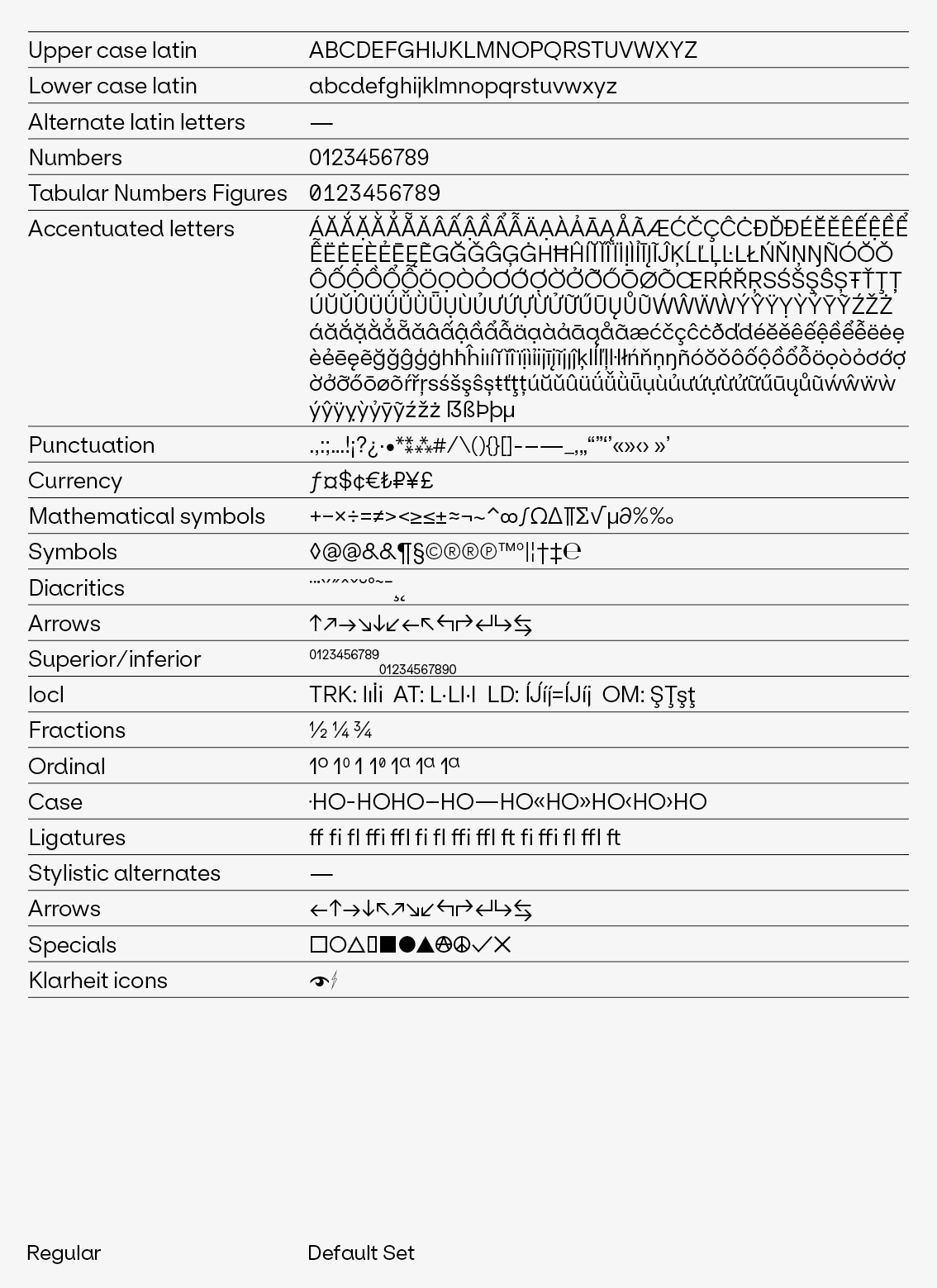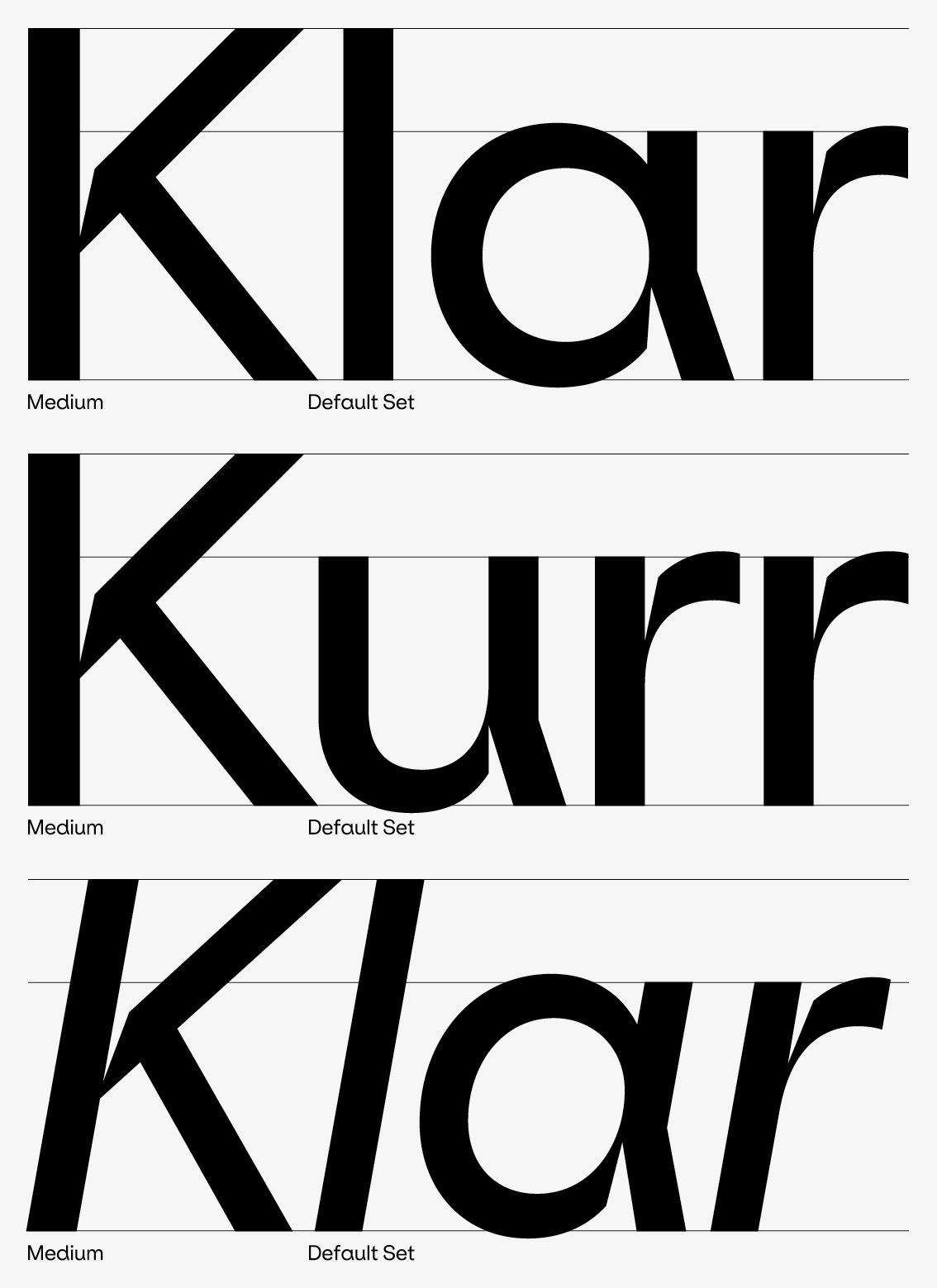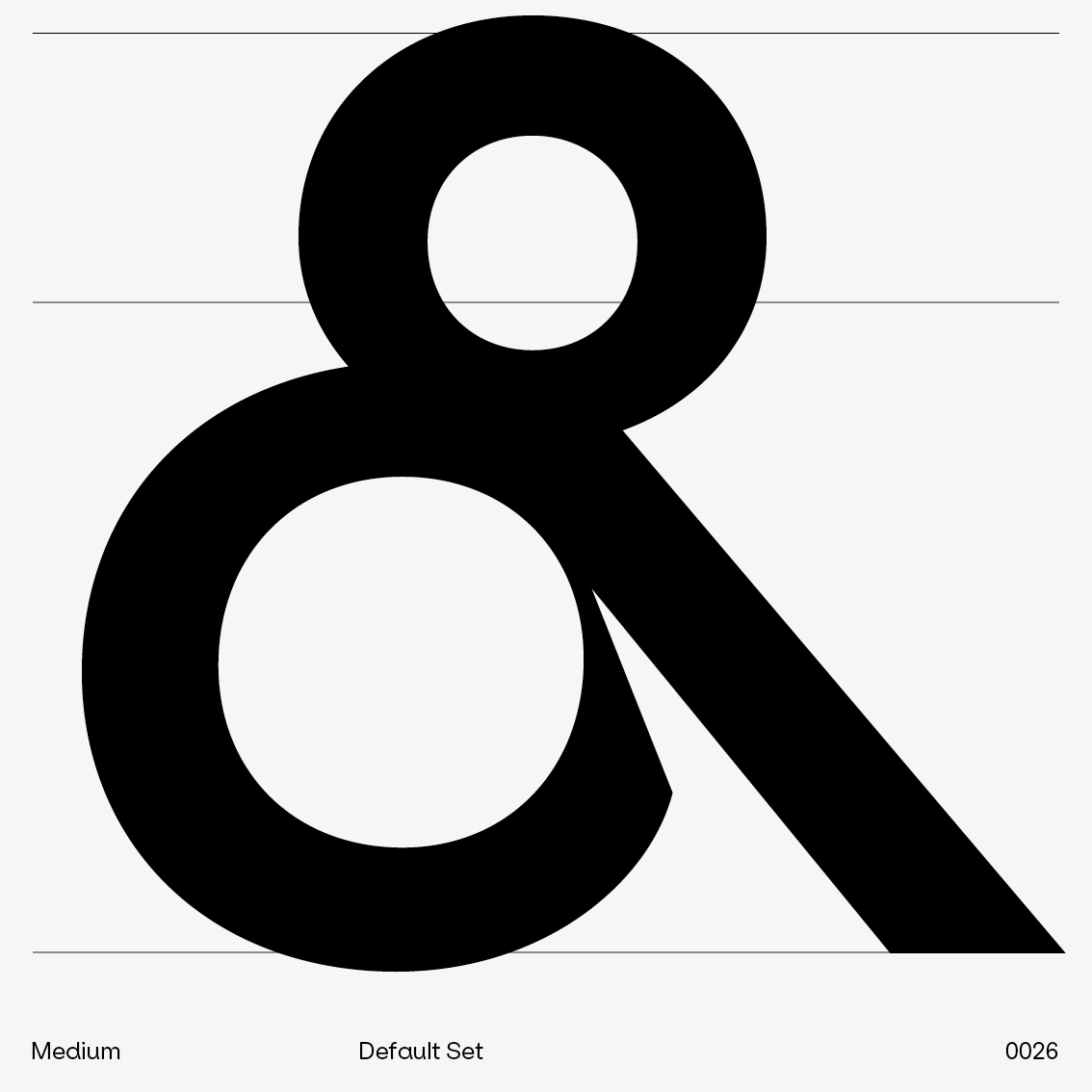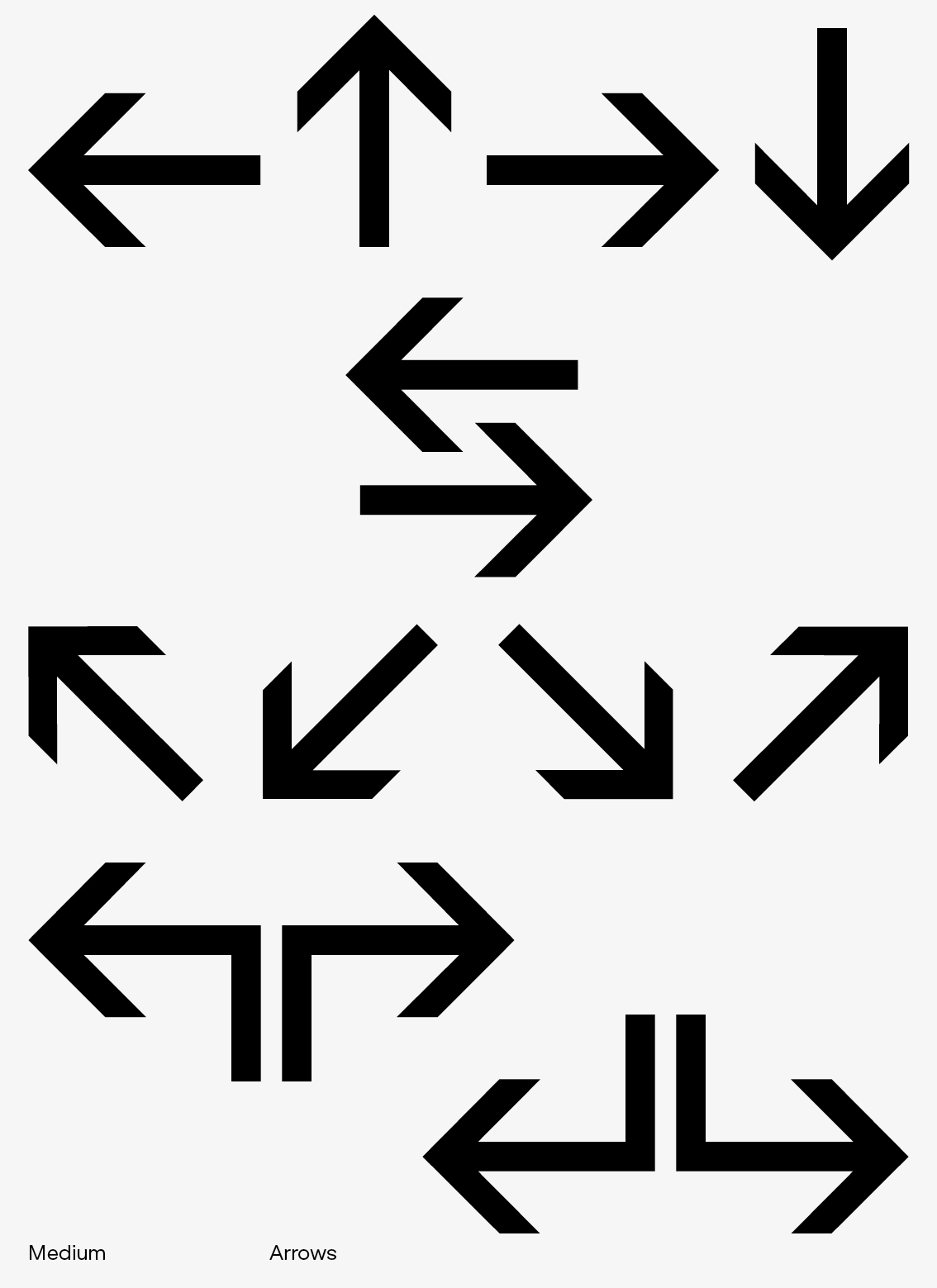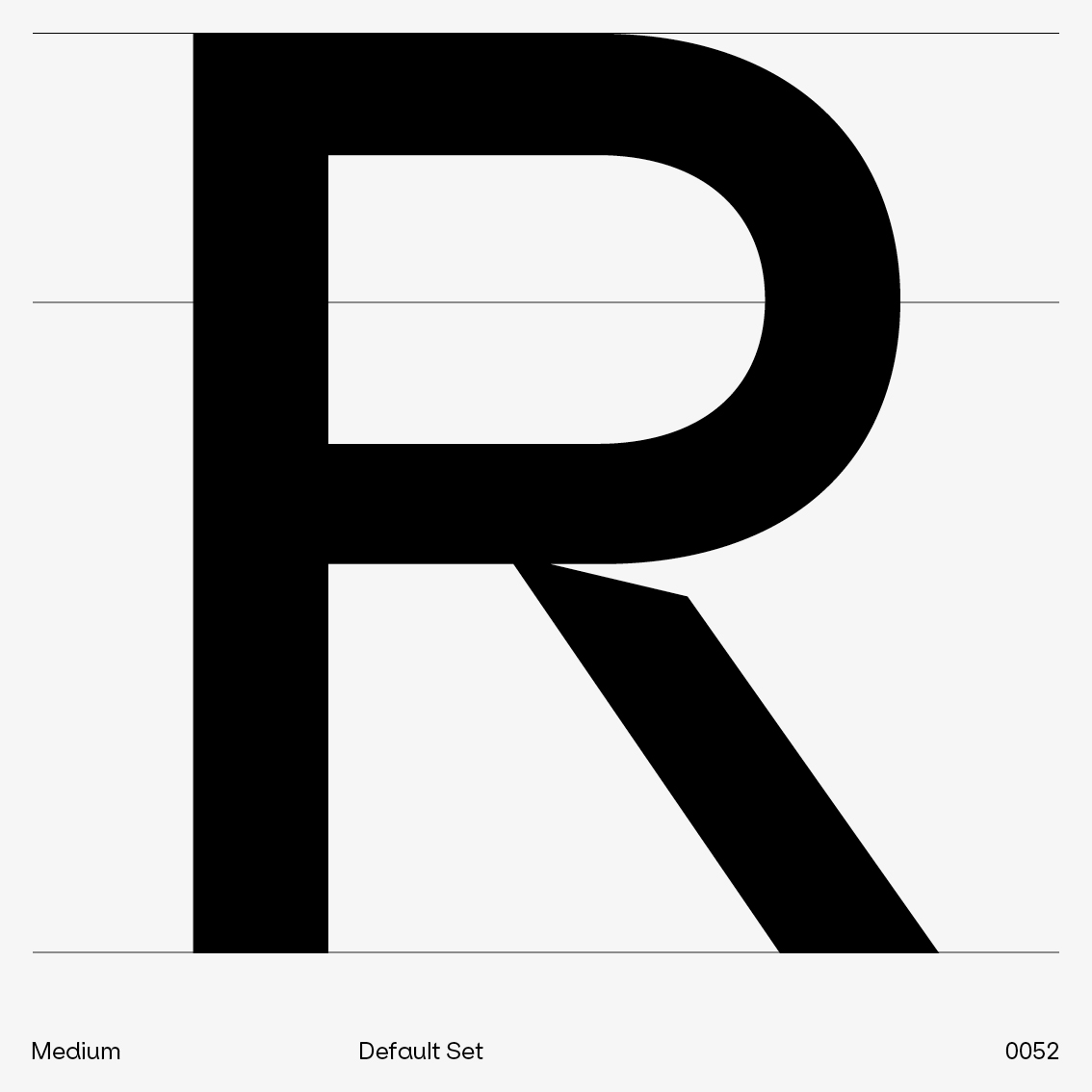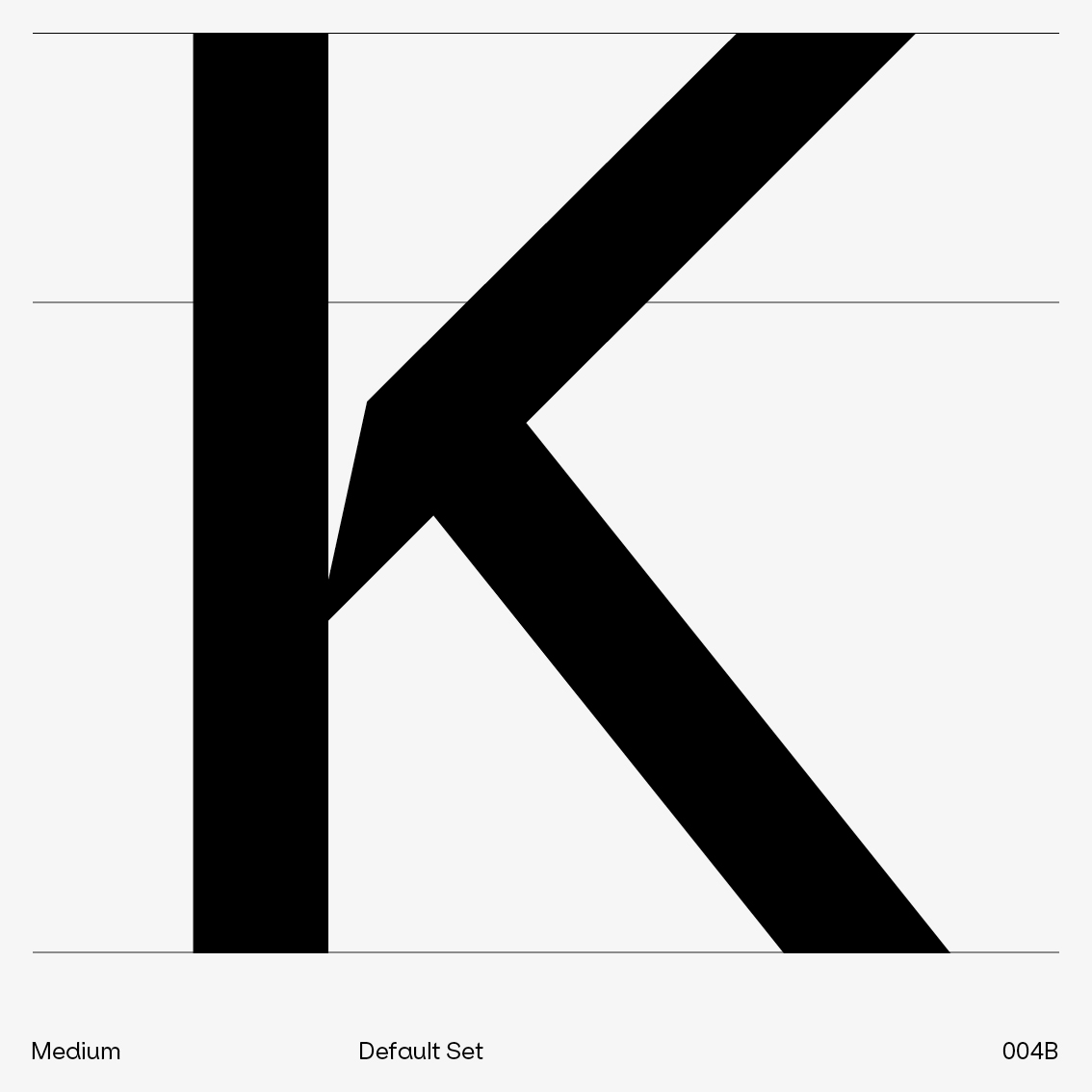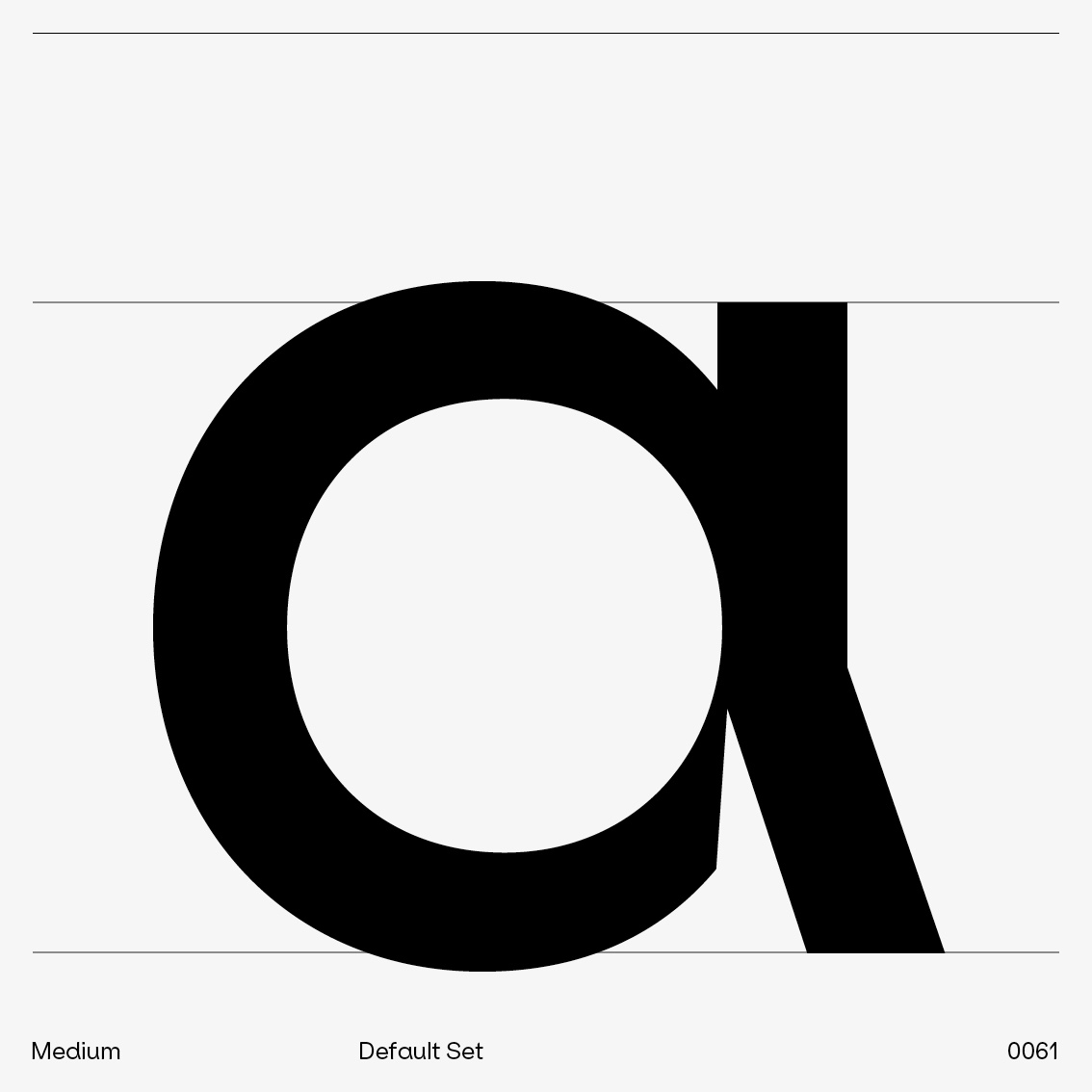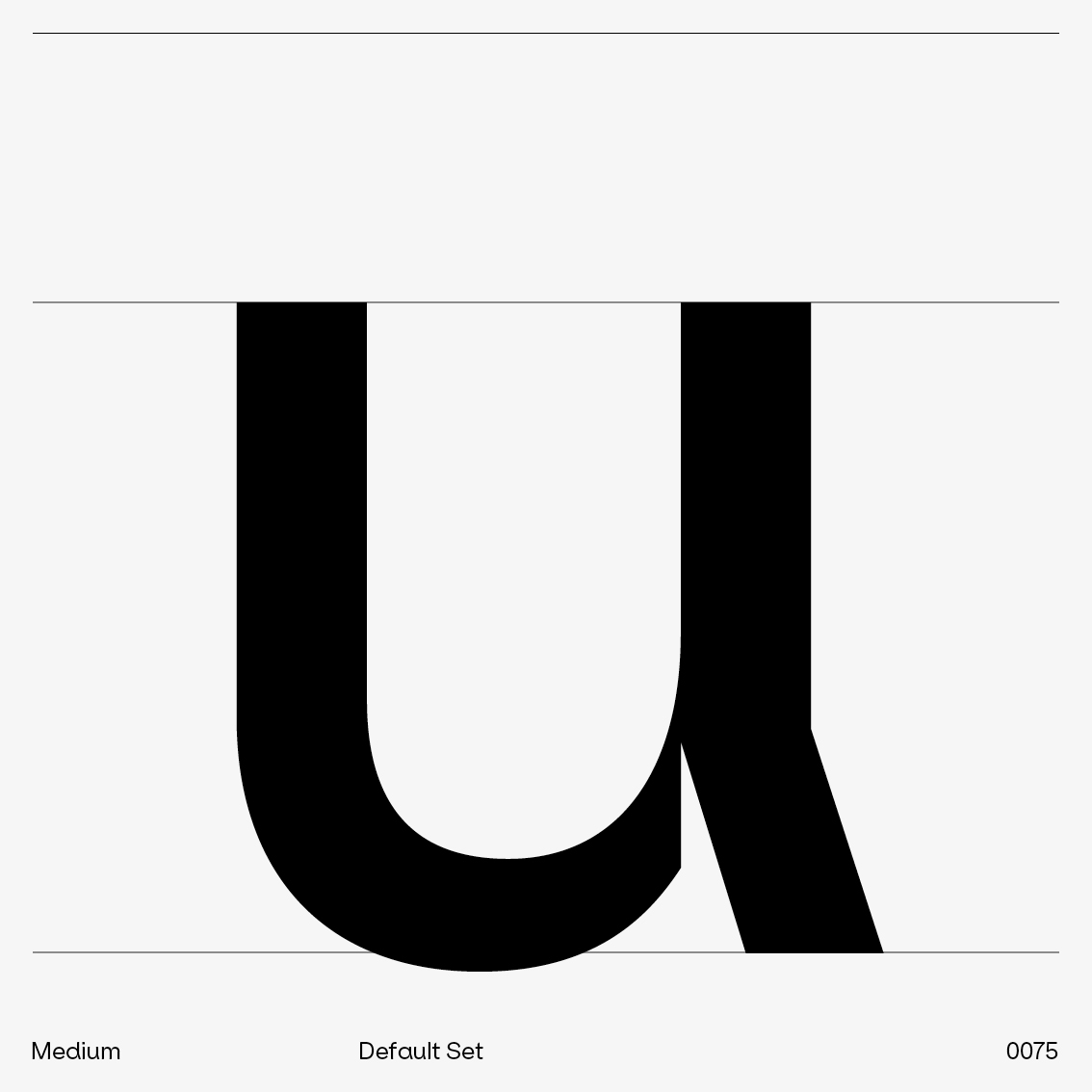
Right after the Klarheit Grotesk experiment, Klarheit Kurrent emerged as an instinctive decision revolving around Alex Dujet’s graphic and typographic work. Developed based on the structures of its parent Klarheit Grotesk, this variant seeks to meet the necessary demands of a powerful and original tool. The aim of the project enhances the authenticity of headlines and provides an atypical atmosphere when using this font for work tasks.
Also designed to echo modernism and geometrical standards, Klarheit Kurrent nevertheless does not include a stylistic set. The project only focuses on a single decision in opposition to the manifold possibilities of the flagship Klarheit Grotesk project, a radical choice that features extreme cuts in the finishes of some of the components of the basic alphabet, in order to outline an authentic approach when developing communication projects of all types.